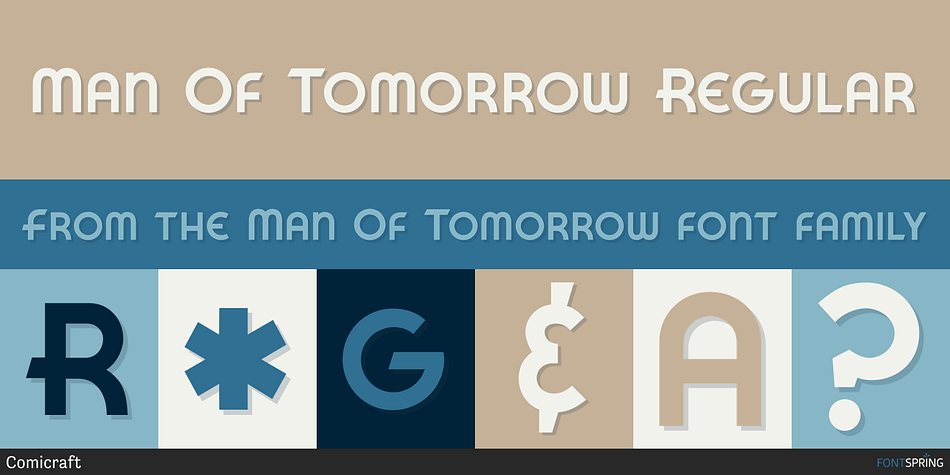
Man Of Tomorrow Regular
Designed by John Roshell, Man Of Tomorrow is an art deco and display sans font family. This typeface has four styles and was published by Comicraft.
He’s a man of character; a Man for All Seasons. He upholds the values of Truth, Justice and the American Way and he’s never averse to a slice of Ma’s homemade apple pie. He’s not a man of yesteryear, nor a man caught in the here and now. He’s a human being of great honor, a citizen of the world—a Man of Tomorrow!